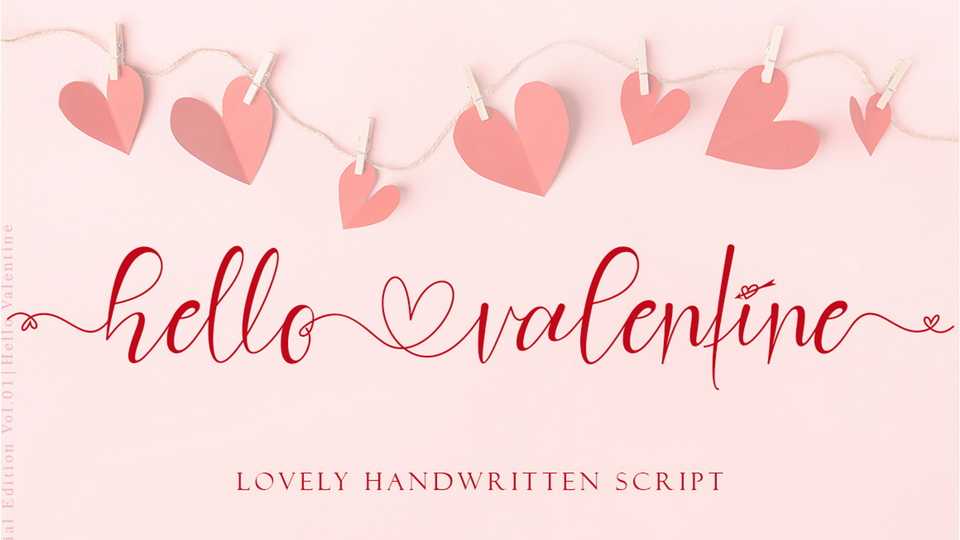
Download Hello Valentine font, a lovely modern calligraphy typeface with pretty tails. Hello Valentine is perfect for expressing your happiness with your partner.